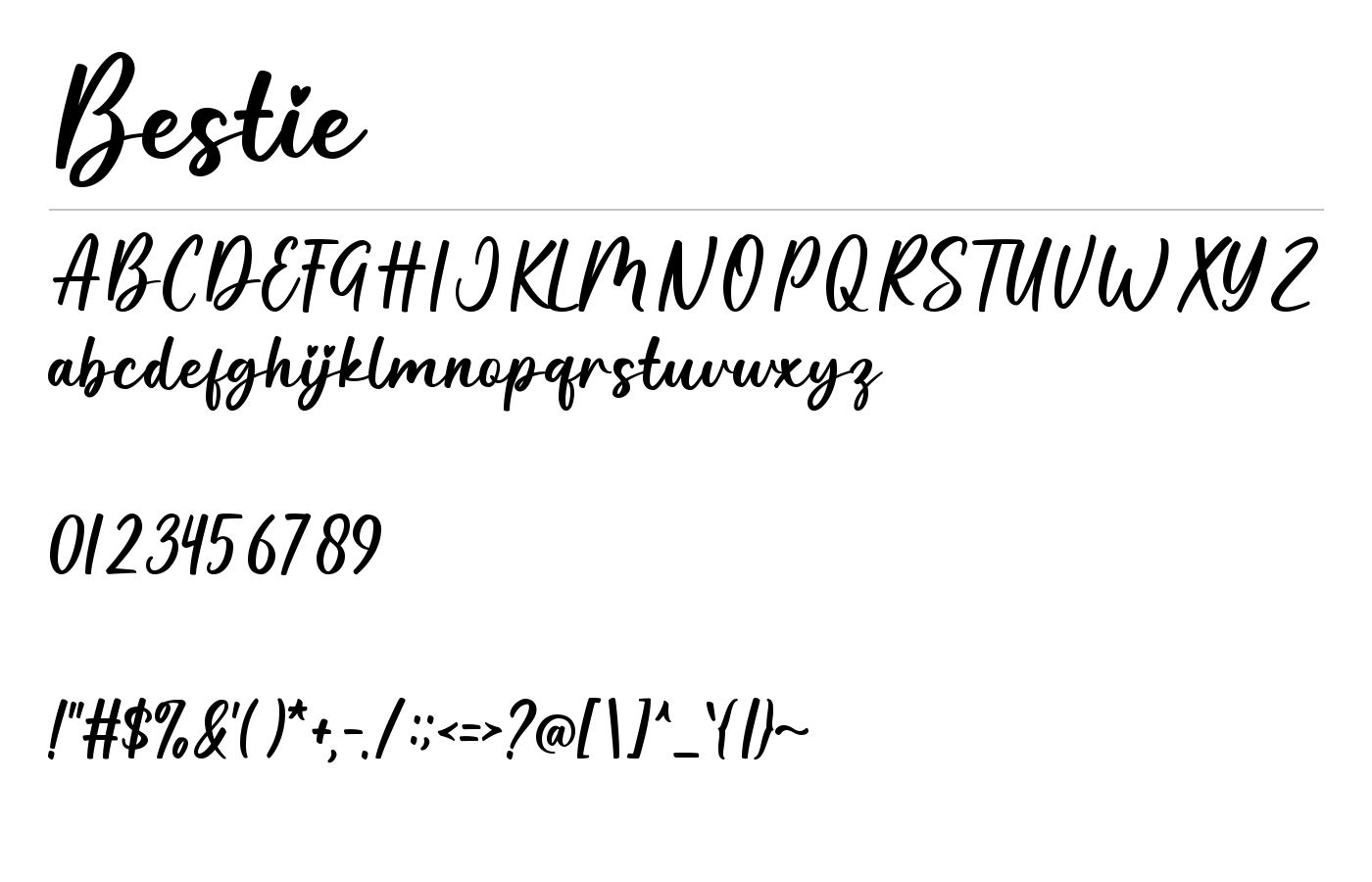
Bestie Font is a lively and charming script typeface characterized by its smooth, flowing strokes and playful heart-shaped dot on the "i". It combines a casual, handwritten feel with elegant, slightly condensed letterforms, making it perfect for adding a friendly and personal touch to branding, invitations, or social media graphics. This font works especially well where a warm, modern, and approachable style is desired.
Bestie Font